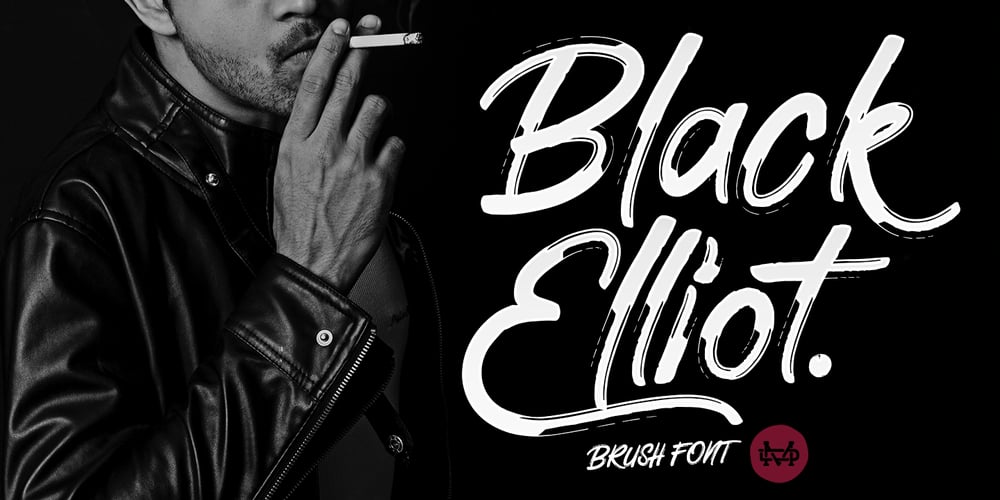
Black Elliot
Black Elliot font
Black Elliot Font Family was designed by Suandana ipandemade and published by madeDeduk. Black Elliot contains 2 styles and family package options. Black Elliot is a bold Brush font. This font perfect for poster design, book covers, merchandise, fashion campaigns, newsletters, branding, advertising, magazines, greeting cards, album covers, and quote designs and more.Features: – Uppercase – Lowercase – Numbers & Symbols – International Glyphs – Alternative Uppercase – Alternative lowercase – Swashes